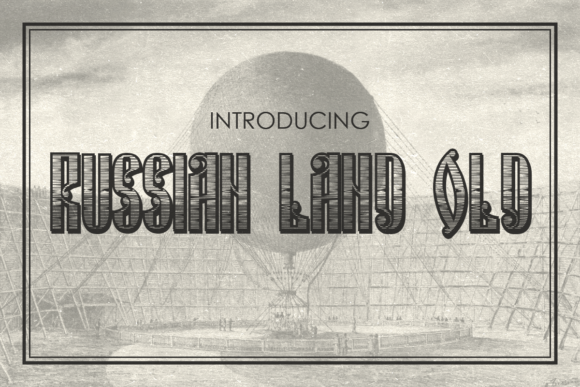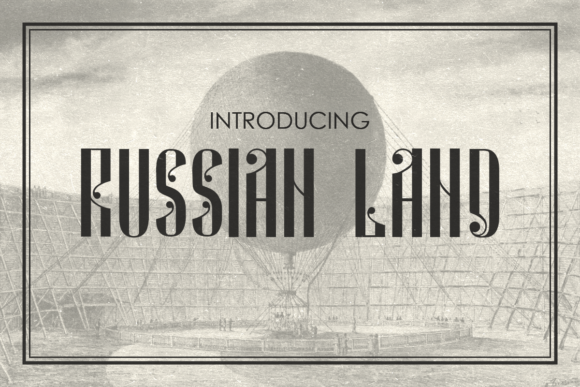
HomeScript FontsRussian Land Font Script Fonts Russian Land Font FacebookXPinterestWhatsApp Russian Land Font Poster 2 Russian Land Font Poster 3 About Russian Land Font The Russian Land is an elegant, yet striking typeface. It comes in three variations: regular, shadow, and old. DOWNLOAD NOW People also explored Collier Repstein Font Groovin Ragat Font Margarine Pro Allerlei Zierat 3 Font Beauty Bohemian Font Welcome Valentinessa Font Teddy Font Jinstage Font 302 0 TagsRussian Land Font Previous articleThrottles FontNext articleHeart Monogram Font LEAVE A REPLY Cancel reply Comment: Please enter your comment! Name:* Please enter your name here Email:* You have entered an incorrect email address! Please enter your email address here Website: Save my name, email, and website in this browser for the next time I comment. Personal Use Free Bethania Personal Use Free Read more about this font Vinograd Personal Use Free Read more about this font Jellia Personal Use Free Read more about this font Mellow Personal Use Free Read more about this font BLOG How to Cut Any Font on Cricut: Convert a Font to SVG (Free) Turn any font into a clean SVG so it cuts crisp on Cricut - a quick 3-step workflow using a free font-to-SVG tool. Top 7 Google Fonts Alternatives for Faster and Privacy-Friendly Web Design (2025) Elegant Wedding Invitation Fonts – Handwritten & Script Fonts Exploring Font Trends